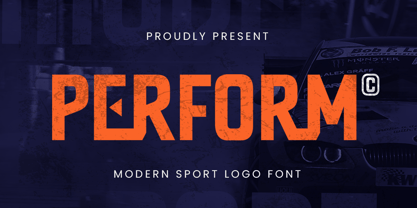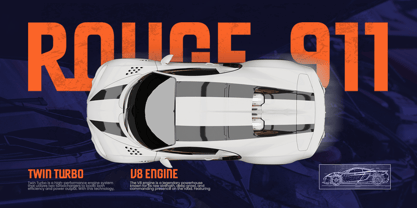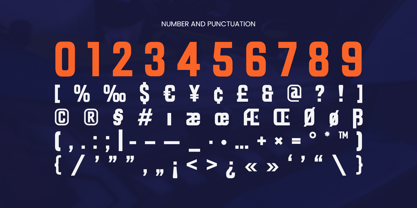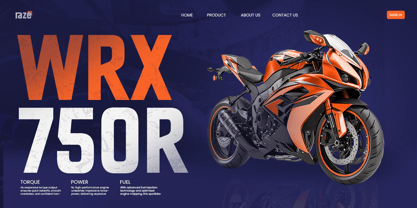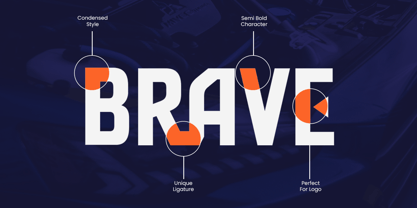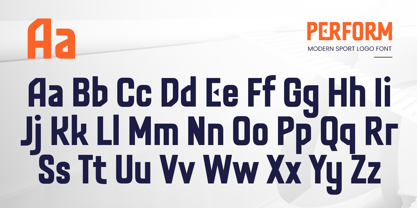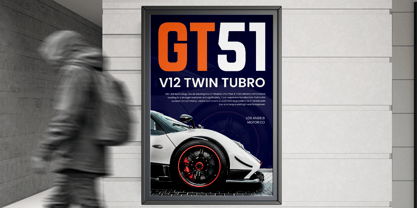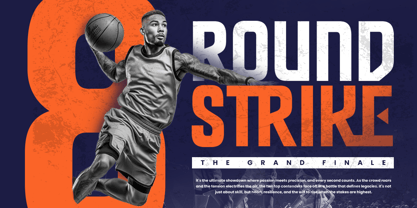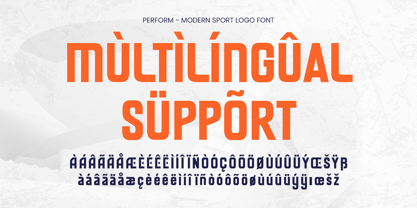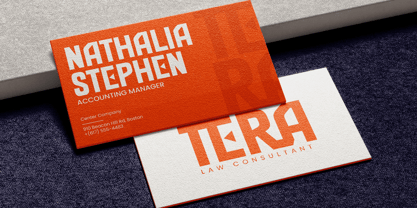
Perform is a modern sport logo font built for movement, energy, and bold visibility. With its sharp edges, compact build, and action-ready presence, Perform is ideal for sports team branding, gaming streams, fitness packaging, and event posters.
Its confident letterforms are designed to convey strength and speed, making your typography feel competitive and powerful. Whether for merchandise, tournament logos, or digital platforms, Perform brings instant impact and athletic identity.
Take your visuals to the next level with Perform—a typeface that lives up to its name in every design arena.
Perform – Modern Sport Logo Font Features
Bold and dynamic athletic design
Alternate and Ligature Characters Ready
Perfect for sports branding, esports, and action visuals
Punctuation, numbers, and symbols included
Uppercase and lowercase letters
OpenType features for performance customization
Multilingual support for
Afrikaans, Albanian, Asu, Basque, Bemba, Bena, Breton, Chiga, Cornish, Dutch, English, Estonian, Filipino, Finnish, Friulian, Galician, German, Gusii, Indonesian, Irish, Italian, Kabuverdianu, Kalenjin, Kinyarwanda, Luo, Luxembourgish, Luyia, Machame, Makhuwa-Meetto, Makonde, Malagasy, Manx, Morisyen, North Ndebele, Nyankole, Oromo, Portuguese, Quechua, Romansh, Rombo, Rundi, Rwa, Samburu, Sango, Sangu, Scottish Gaelic, Sena, Shambala, Shona, Soga, Somali, Spanish, Swahili, Swedish, Swiss, and more.